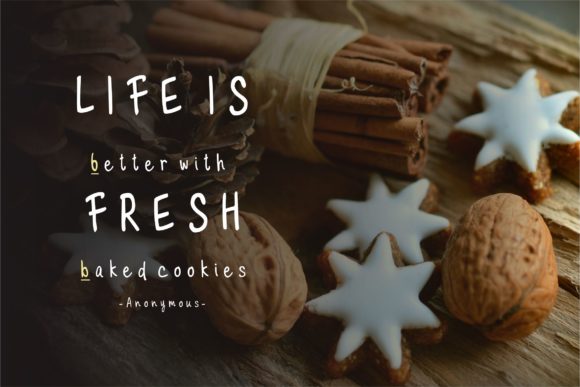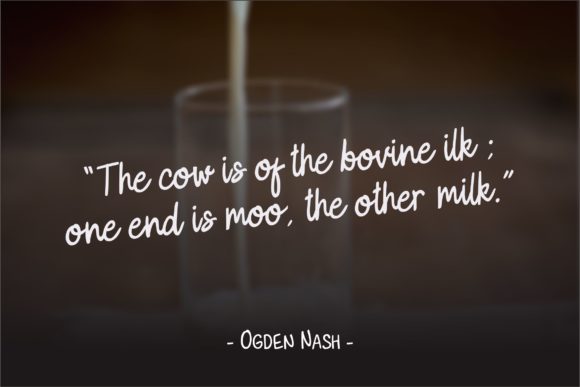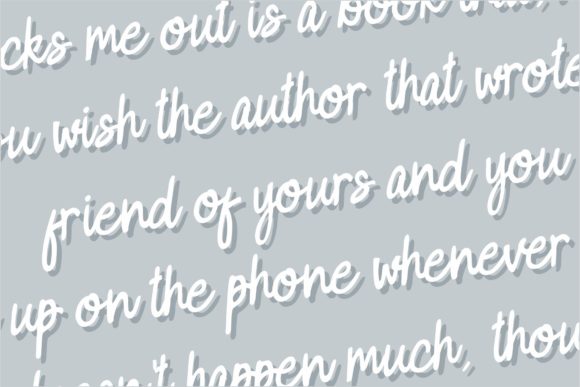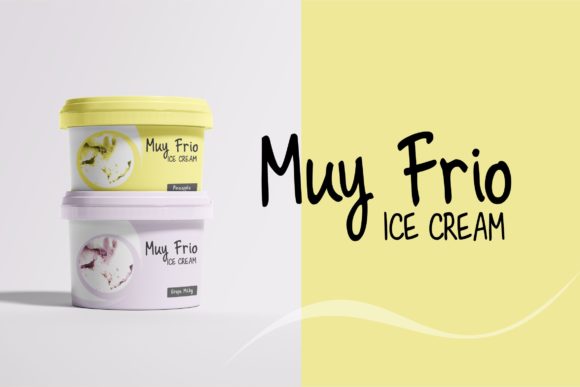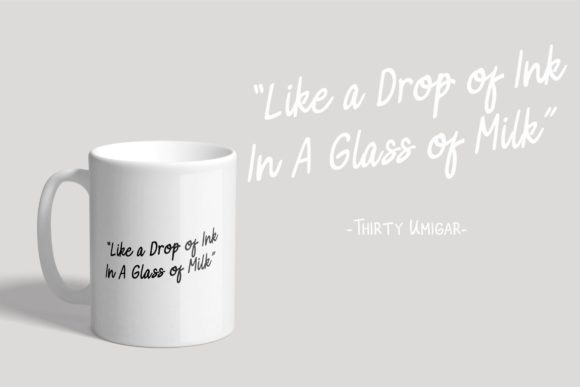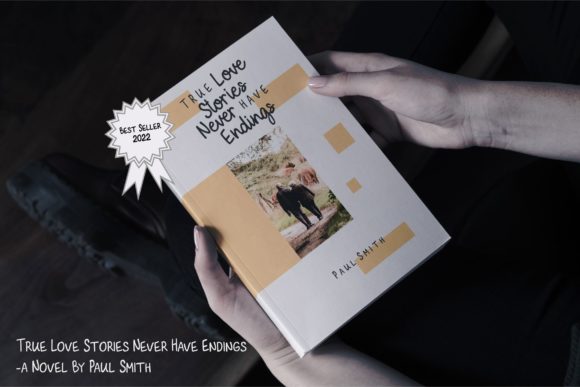
Introduction to Milky Cookies Font Font
Fonts play a crucial role in design, and the Milky Cookies Font font is a typeface that brings both character and versatility to any project. Whether you’re working on a branding project, a website, or a print design, the Milky Cookies Font font offers a unique style that can elevate your work.
Milky Cookies is a sweet and nostalgic script font with a smooth feel.
Get inspired by its friendly character .
Key Features of Milky Cookies Font Font
Why Choose Milky Cookies Font Font?
The Milky Cookies Font font is more than just a typeface – it’s a design tool that helps you communicate your message with style and clarity. Its unique character set and versatile design make it suitable for a wide range of applications, from elegant invitations to bold headlines.
With its carefully crafted letterforms and balanced proportions, the Milky Cookies Font font ensures readability and visual appeal across all mediums.
What makes Milky Cookies Font font special?
The Milky Cookies Font font stands out with its unique design, exceptional readability, and versatility across various design applications.